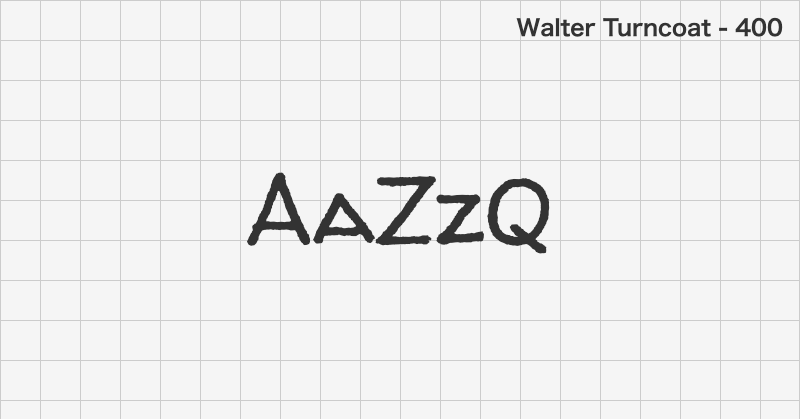
Walter Turncoat – Handwriting Fonts Free for Commercial Use
Walter Turncoat handwriting font text sample preview (free download) Handwriting
Walter Turncoat features a playful design that embodies a sense of patriotism with its spirited letterforms. The font showcases a unique blend of traditional and modern influences, making it suitable for various creative applications.
Walter Turncoat was designed by Sideshow, who aimed to honor the legacy of historical figures through innovative typefaces. The intention was to contribute to the establishment of a free press by creating a font that resonates with a sense of identity and character.